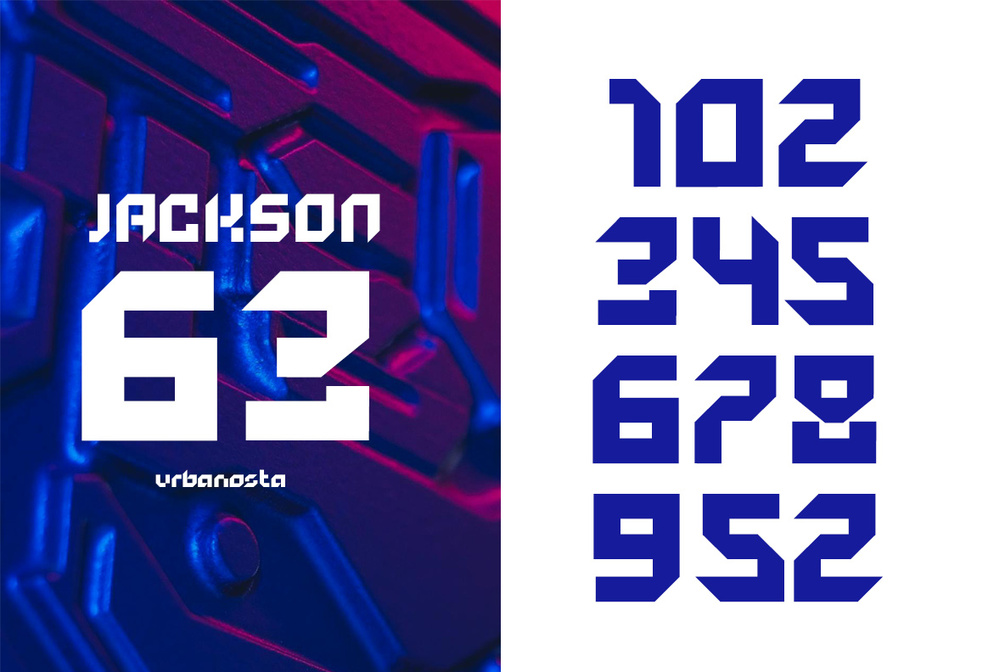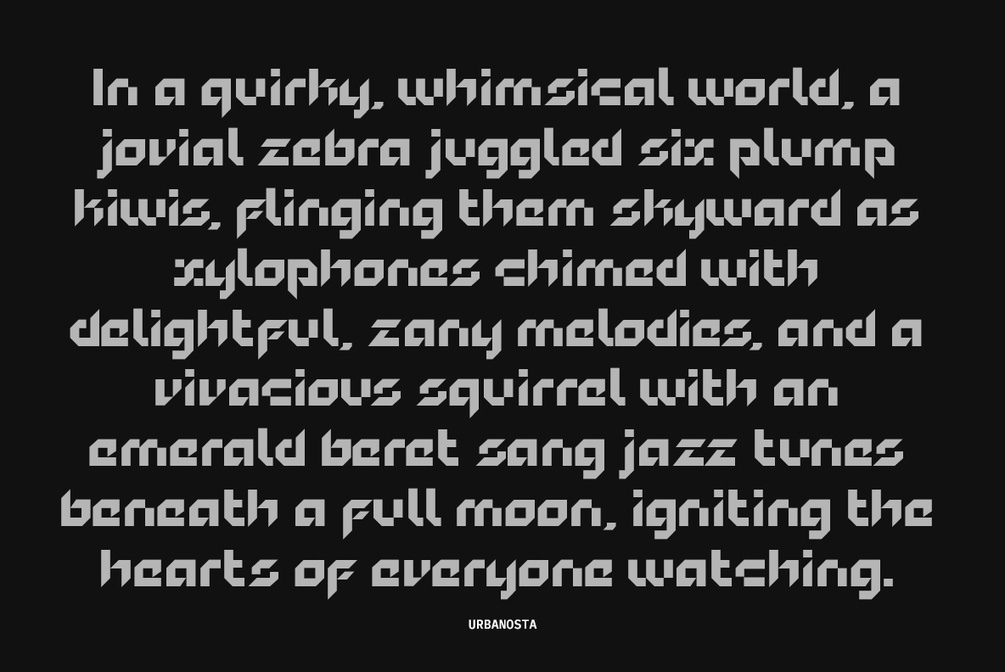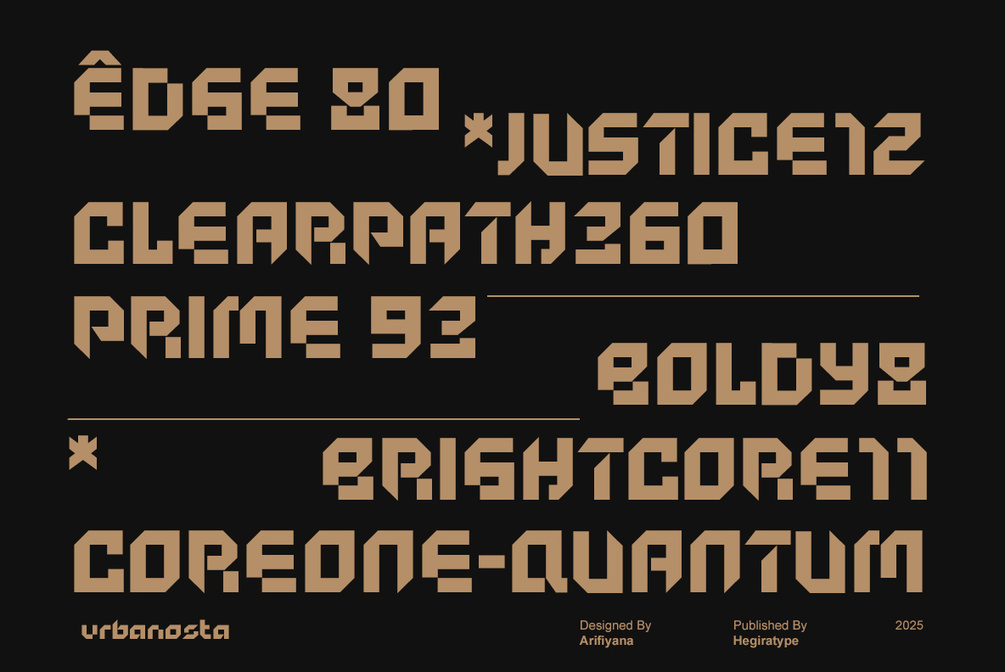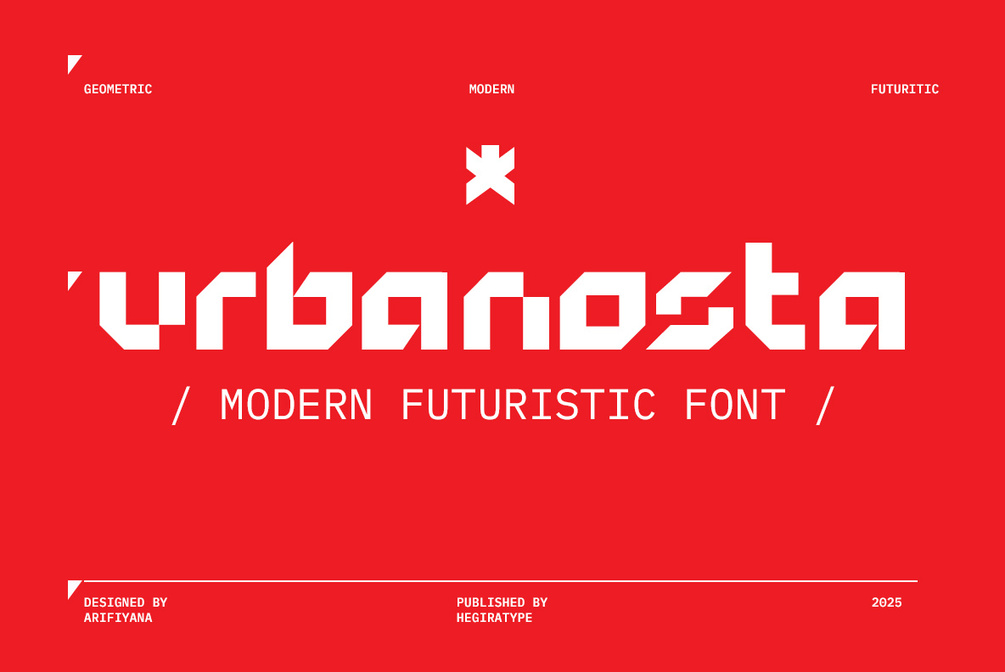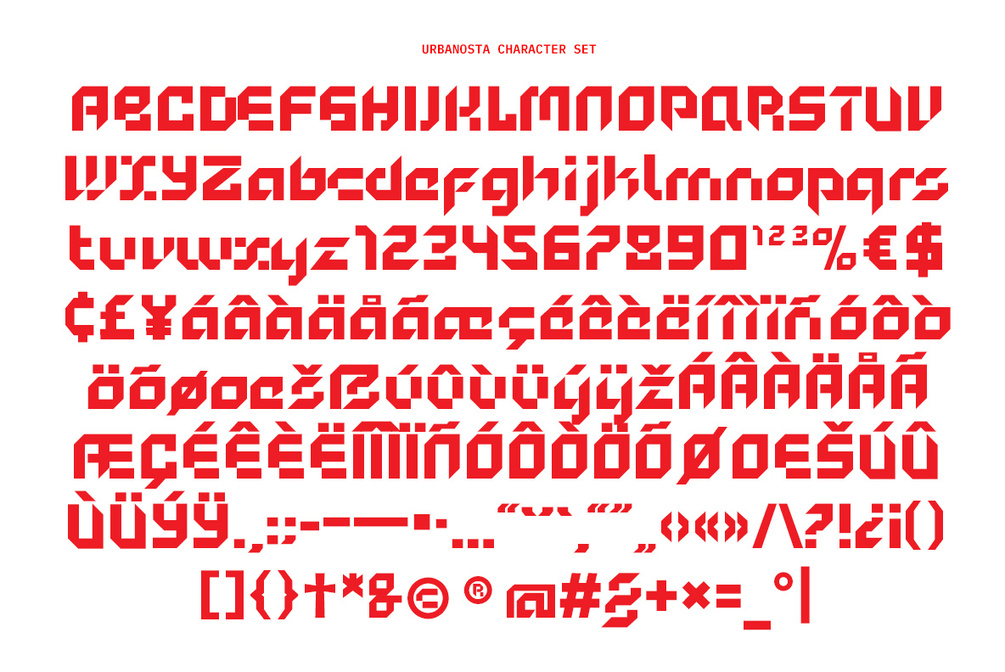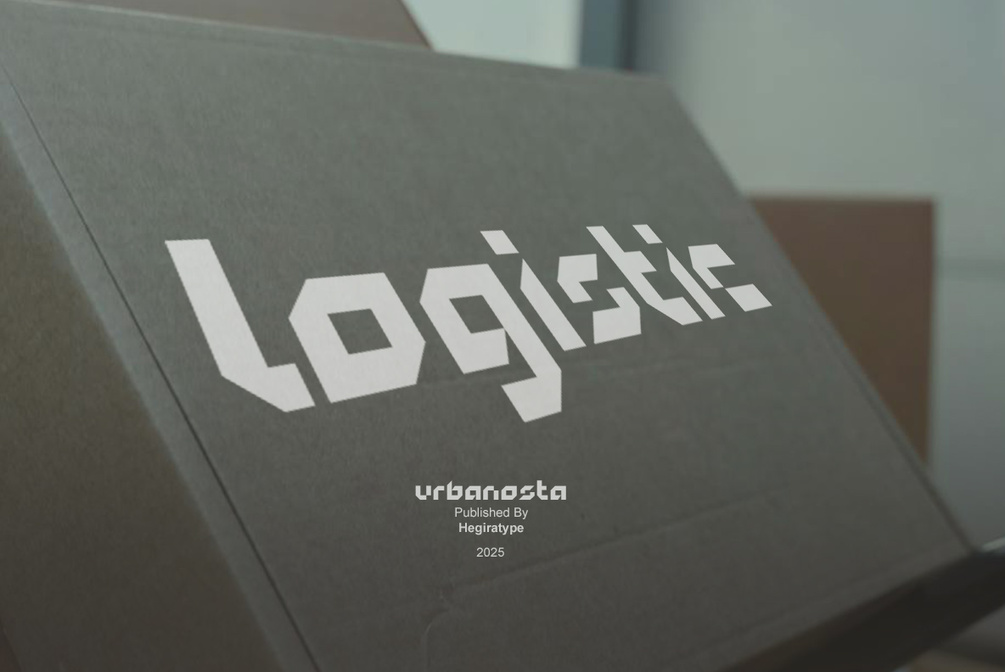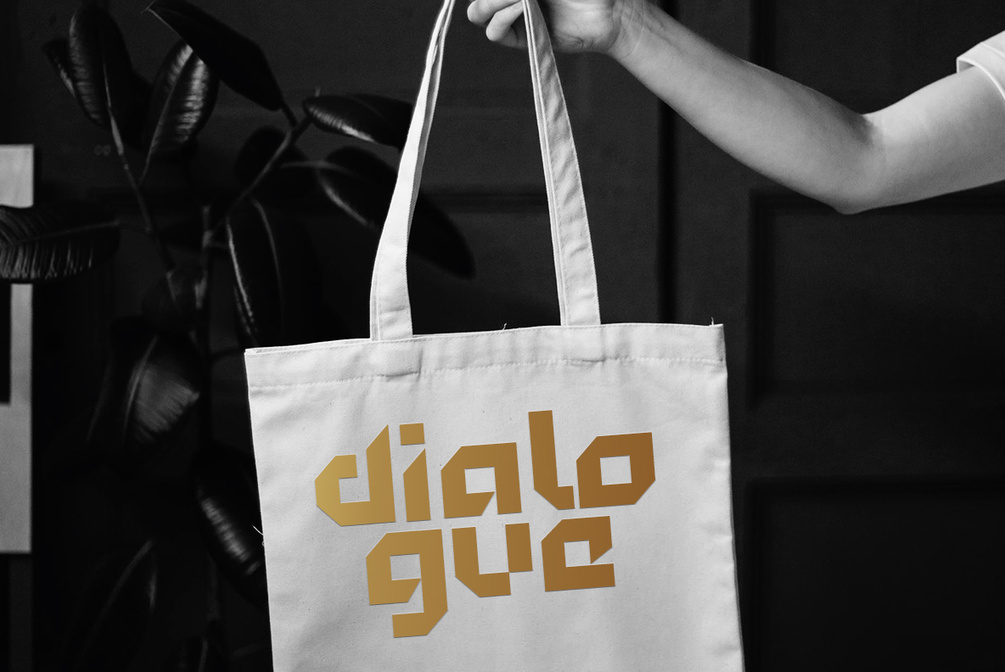
Urbanosta Font
Designed as a futuristic display typeface, Urbanosta blends geometric foundations and seamless transitions, creating a visual rhythm that's both striking and incredibly versatile. Every detail has been carefully considered to balance experimental aesthetics with functional clarity, ensuring that this typeface not only captures attention but also maintains excellent legibility across a variety of media.
With its clean, minimalist structure and contemporary touch, Urbanosta easily adapts to a wide range of creative applications. From building a strong and memorable brand identity and designing impactful editorial layouts to creating bold posters and immersive digital experiences, this typeface elevates every project with its unique personality. Its futuristic yet timeless appeal makes it an essential tool for designers seeking to express innovation, sophistication, and forward-thinking creativity in every visual composition.
Urbanosta an ideal solution for contemporary design needs, from brand identity to visual media.